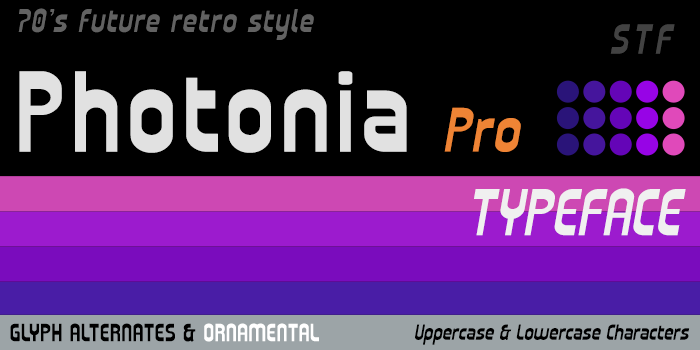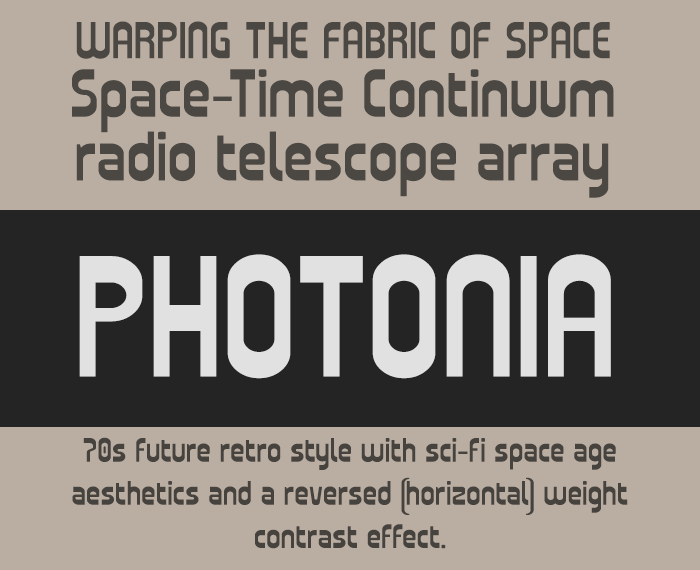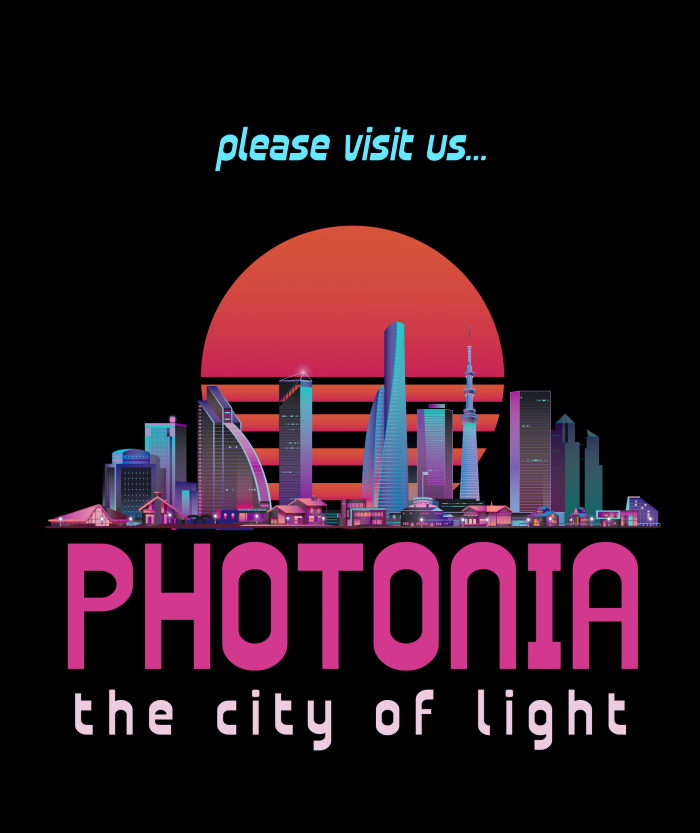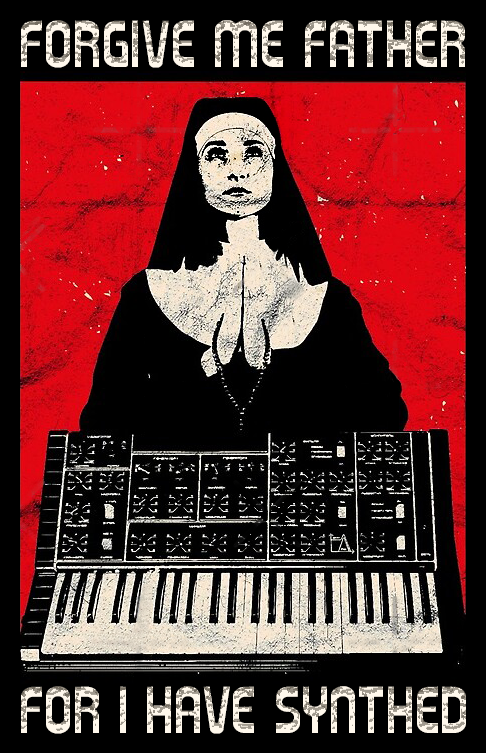
• PHOTONIA (Pro) - 70s future retro style
70s style reverse contrast sans with future retro aesthetics, perfect for projects with a vintage sci-fi, space age or computer theme.
This is actually a refurbished and extended version of an older FontStruction I did back in 2019. The original PHOTONIA was a cool looking little work, but didn't quite made the most of its design concept. Inexperience and poor design decisions had led to inconsistencies and other flaws throughout the font. Besides those it also had a small character set that mostly consisted out of the basic Latin block and bare essential symbols & punctuation marks. But imo it still had quite an interresting retro vibe and the potential to be more. So I decided to give the old project some well deserved refreshments.
First I started eliminating the inconsistencies that were present in the older work, than I continued polishing and re-design / modify several characters hoping to create a greater overall unity to the entire piece. Once I was fully satisfied with this renewed improvements it was time to build and expand the character set towards a more complete lingual and typographic support.
➜ ⚠ Previous Version:
▶ Basic Latin only
▶ Minimal kerning
➜ ⚠ What's New Inside:
▶ Additional Latin and accented Latin
▶ Diacritics
▶ Many glyph alternative forms
▶ Additional symbols and punctuation marks
▶ Horizontal box drawing (page deviders)
▶ Typographical symbols
▶ Ornamental printer's characters
▶ 1680 stored kerning pairs
Groovy! I can see the Zipper/Sintex influence
Really wish it had the rest of the greek and cyrillic alphabet